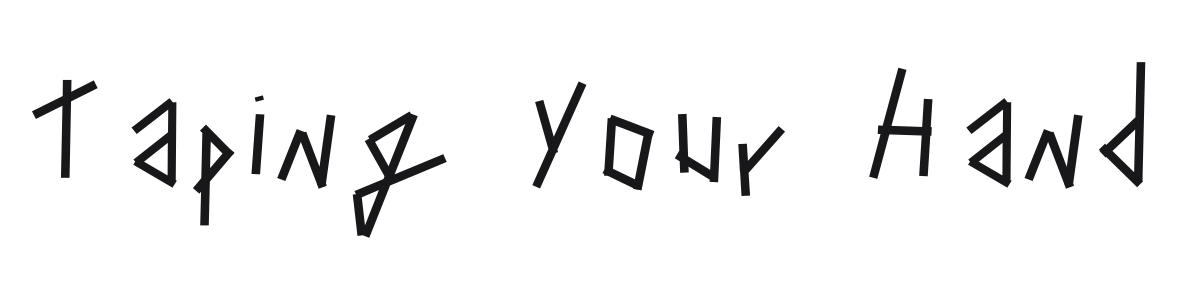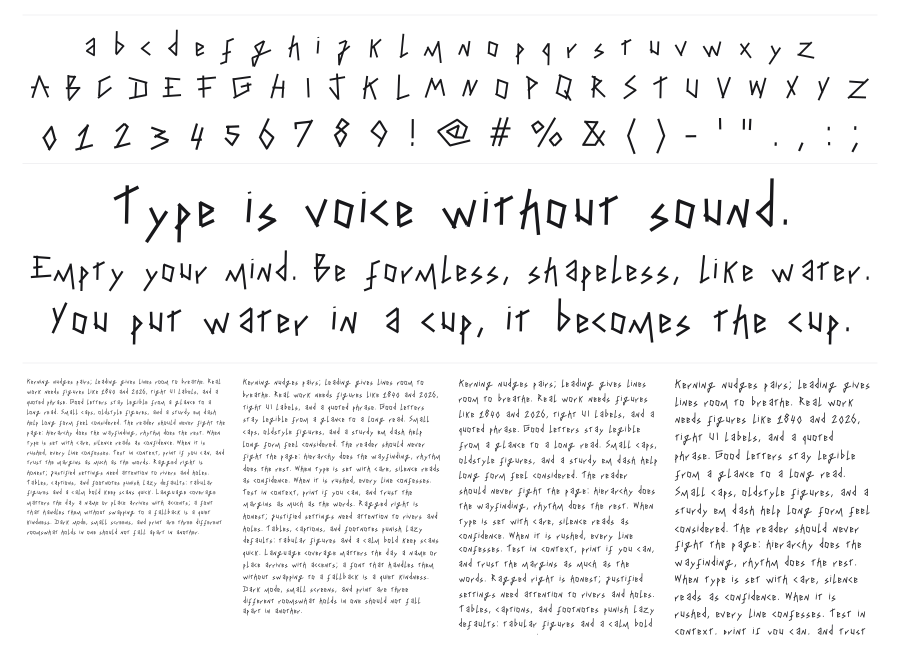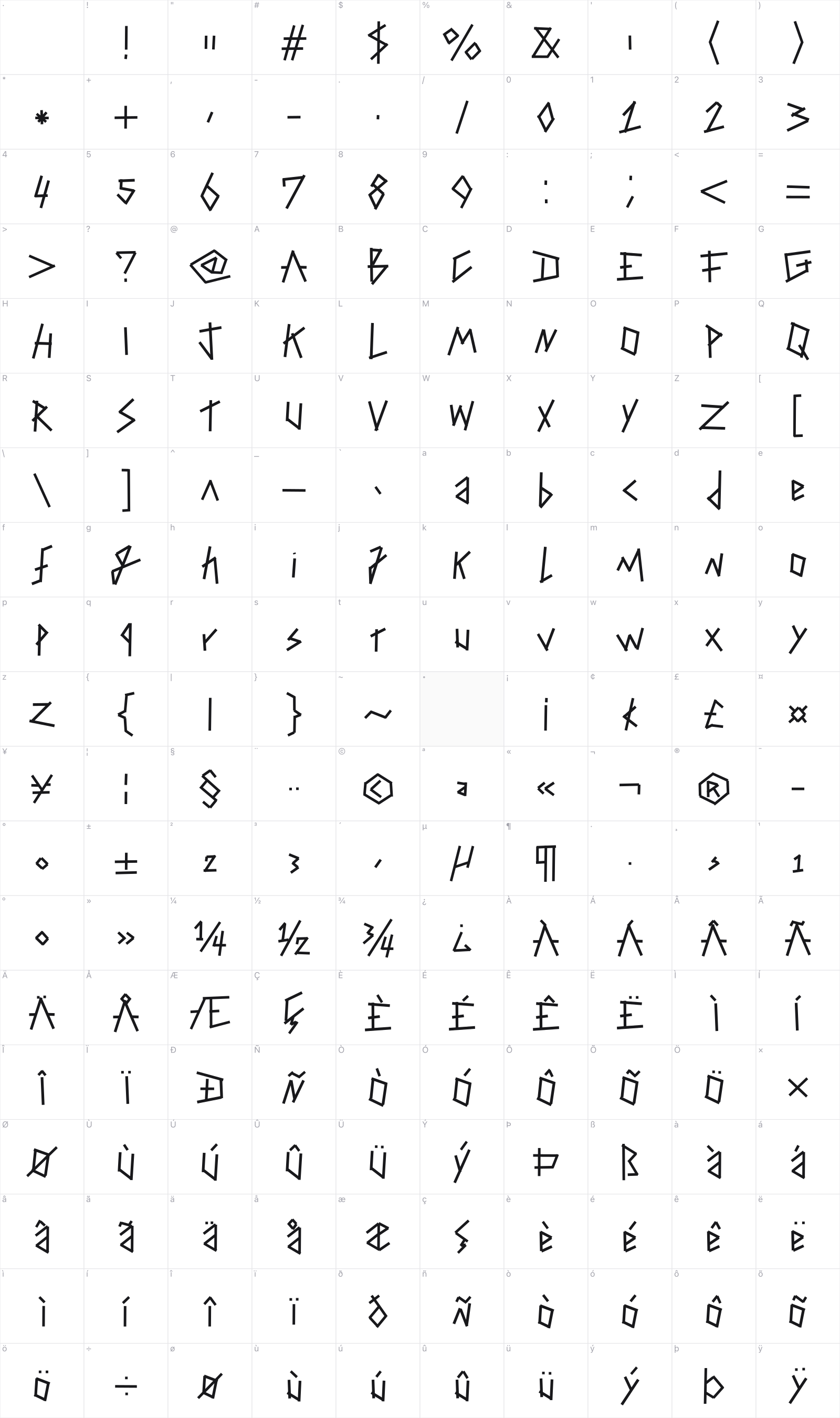
Taping Your Hand
Taping Your Hand is a casual handwritten font built from quick, angular strokes that look like someone scrawled with a fine marker in a hurry. The irregular baseline and abrupt terminals give it a raw, unpolished energy that feels genuinely hand-drawn rather than stylized. It works well wherever a lo-fi, personal, or underground tone is the goal.